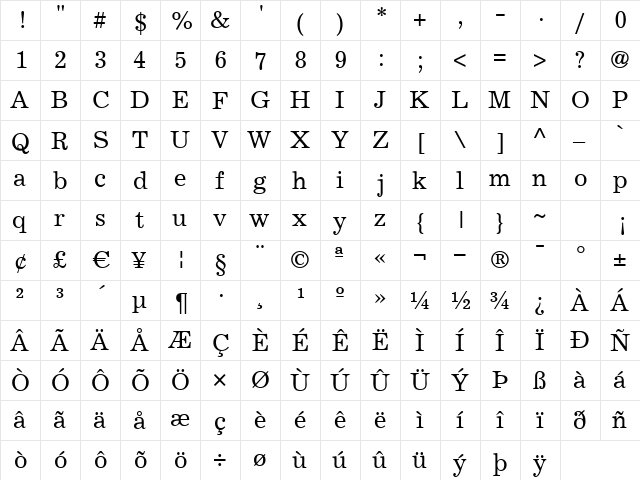
Exemplary Regular
Design Context for Exemplary Typeface
Exemplary offers clean, dependable letterforms without strong stylistic allegiance, making it a practical choice for designers who need flexibility.
Pro Tip: Use Exemplary in both headline and body roles to test its range before committing to a single application.